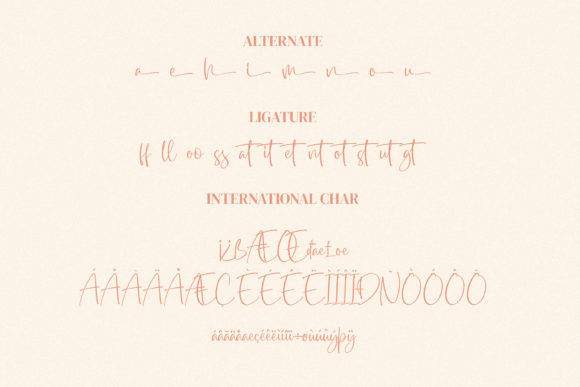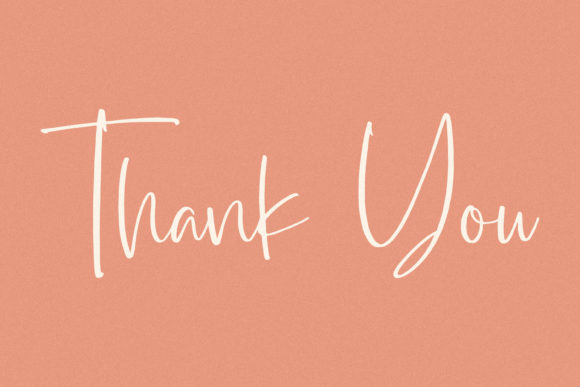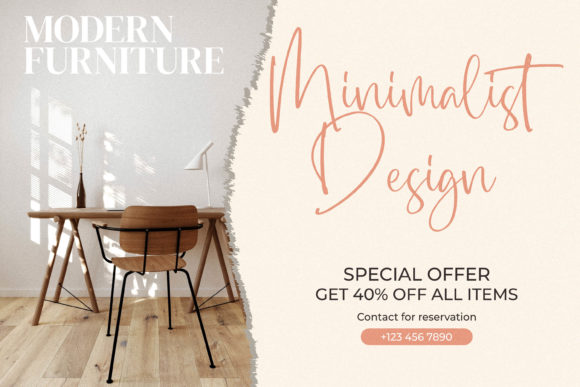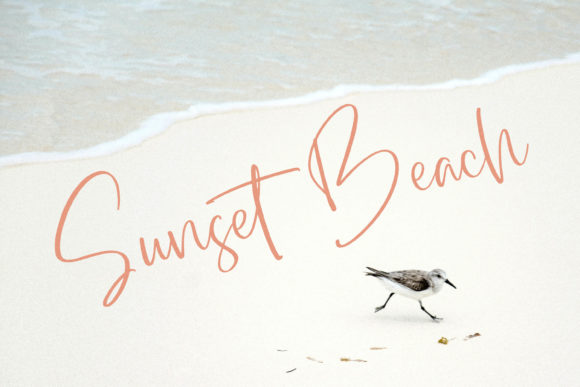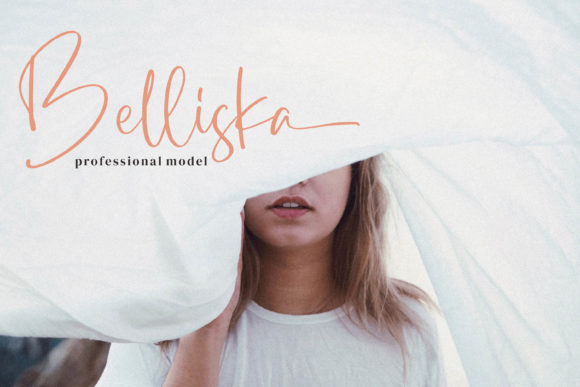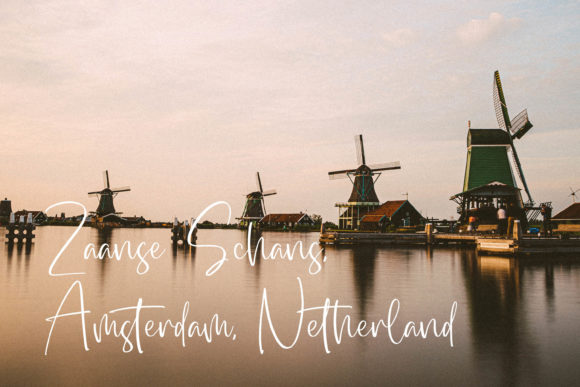
About Dialog Sheila Font
Dialog Sheila is a delicate, elegant and flowing handwritten font. It has beautiful and well balanced characters and as a result, it matches a wide pool of designs. Add it to your most creative ideas and notice how it makes them come alive!